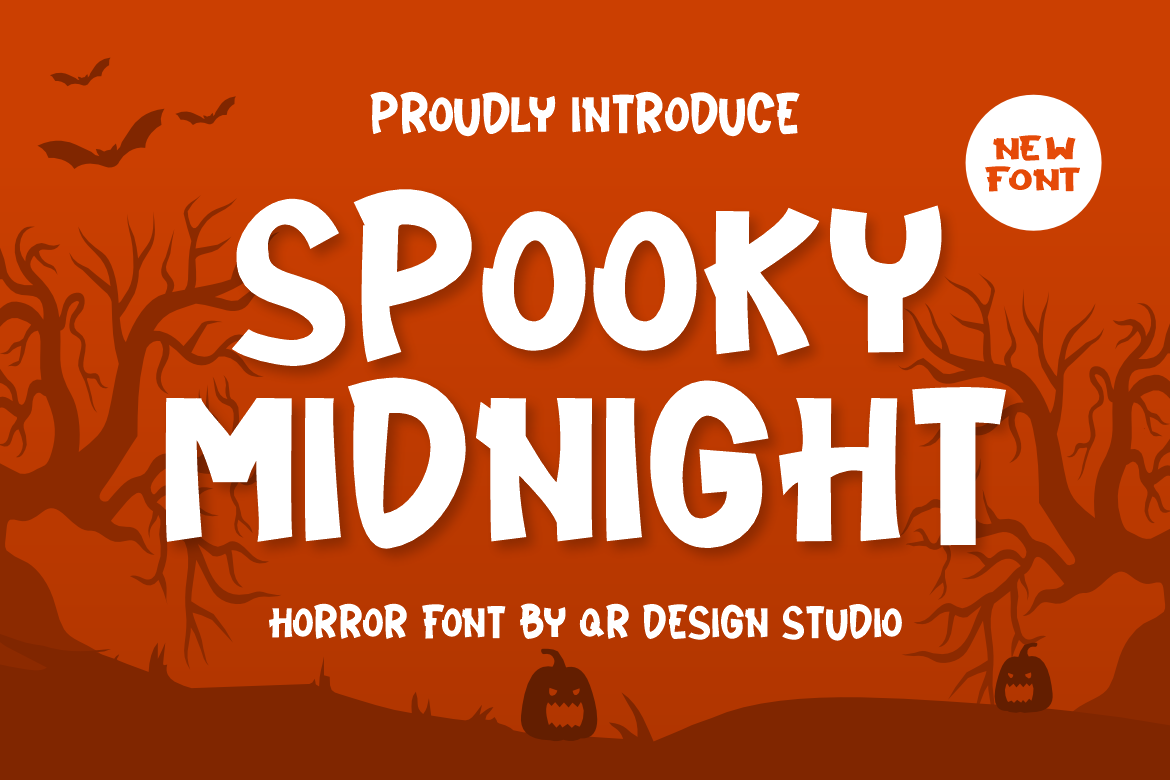
Spooky Midnight - Halloween Font
Spooky Midnight - Halloween Font is a bold and authentic display font. The font is suitable for any branding project like logo, halloween, dark, gothic, metal, food, poster, kids, sport, and many more. Outstanding in a wide range of contexts.